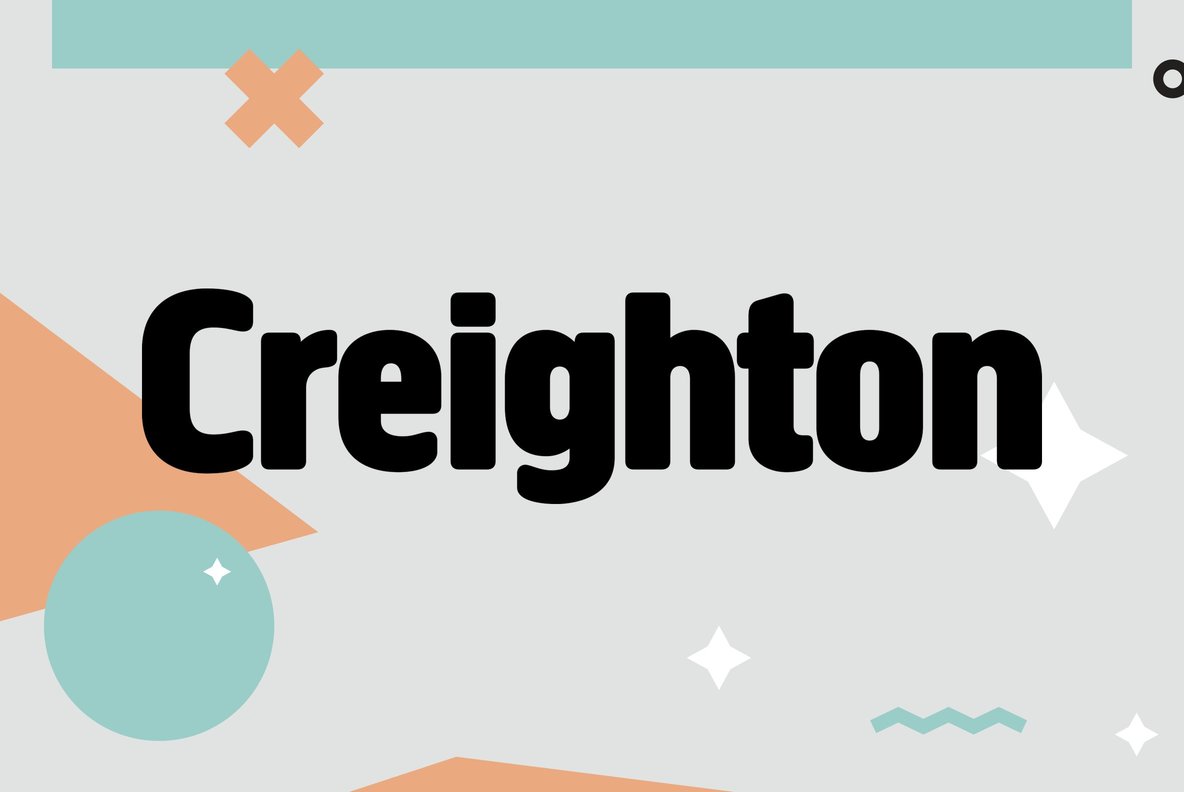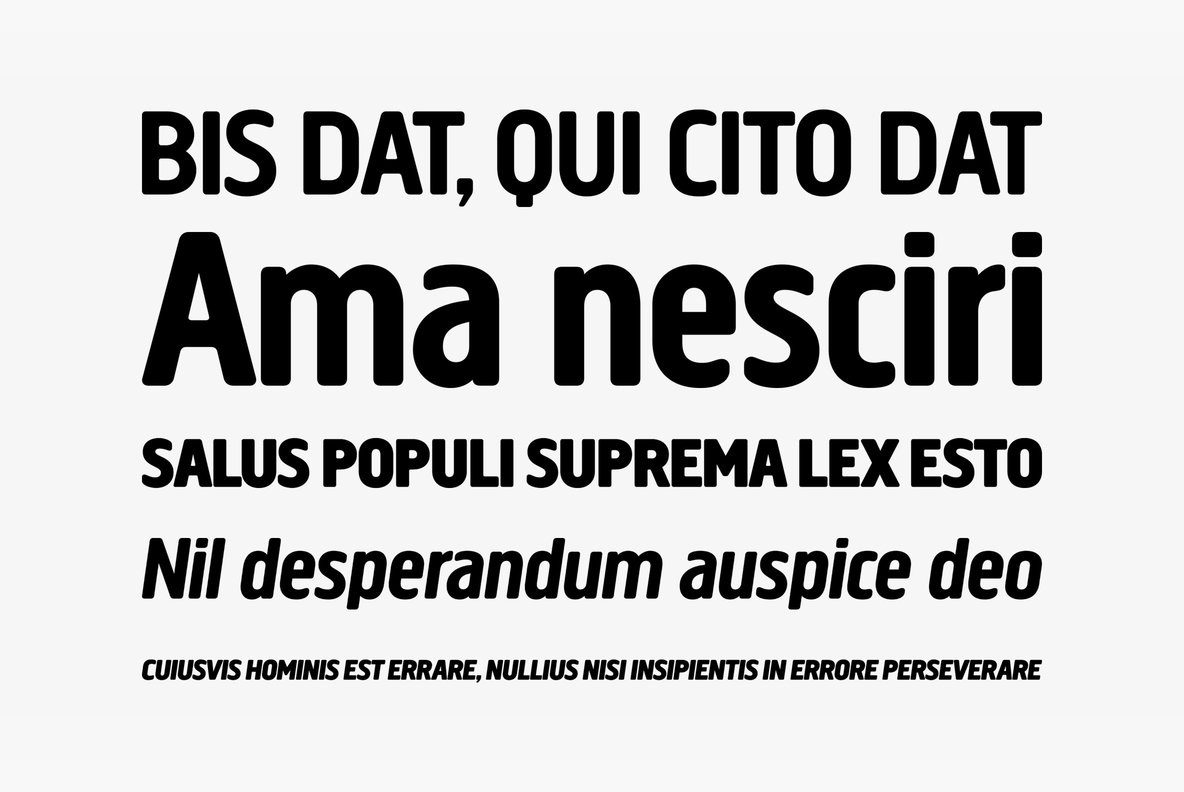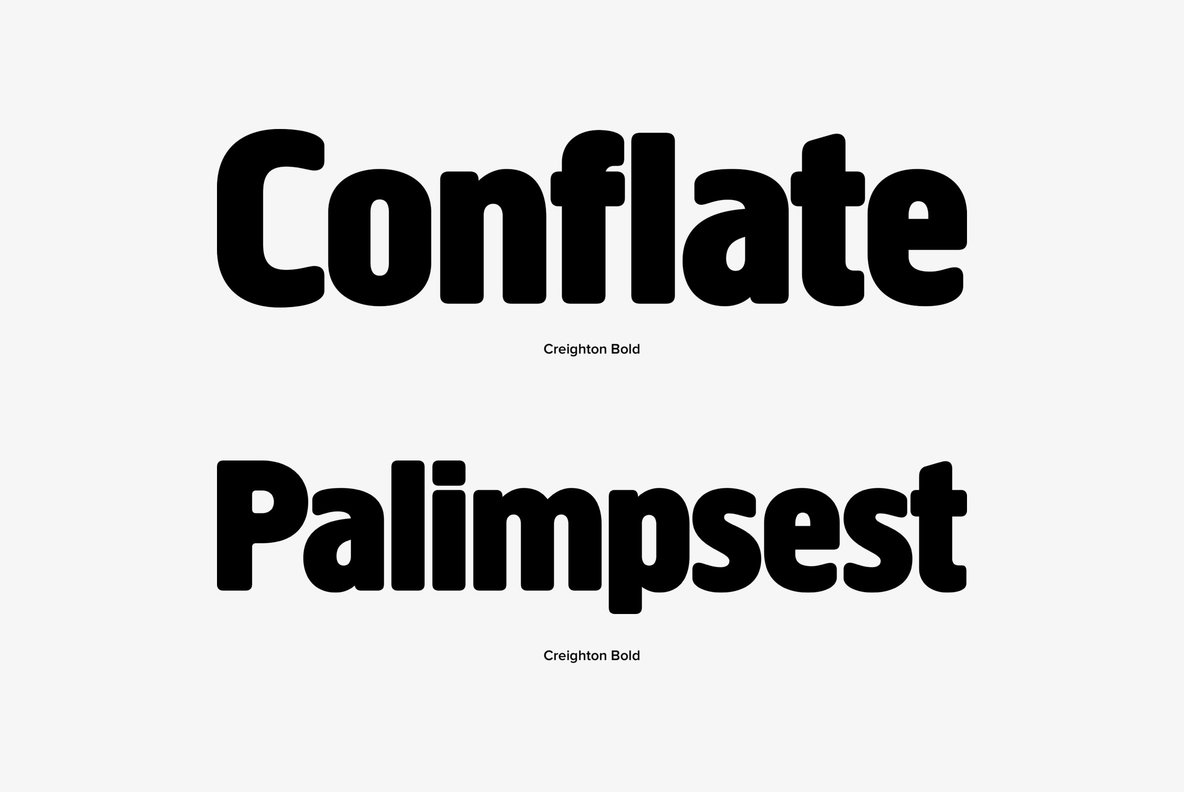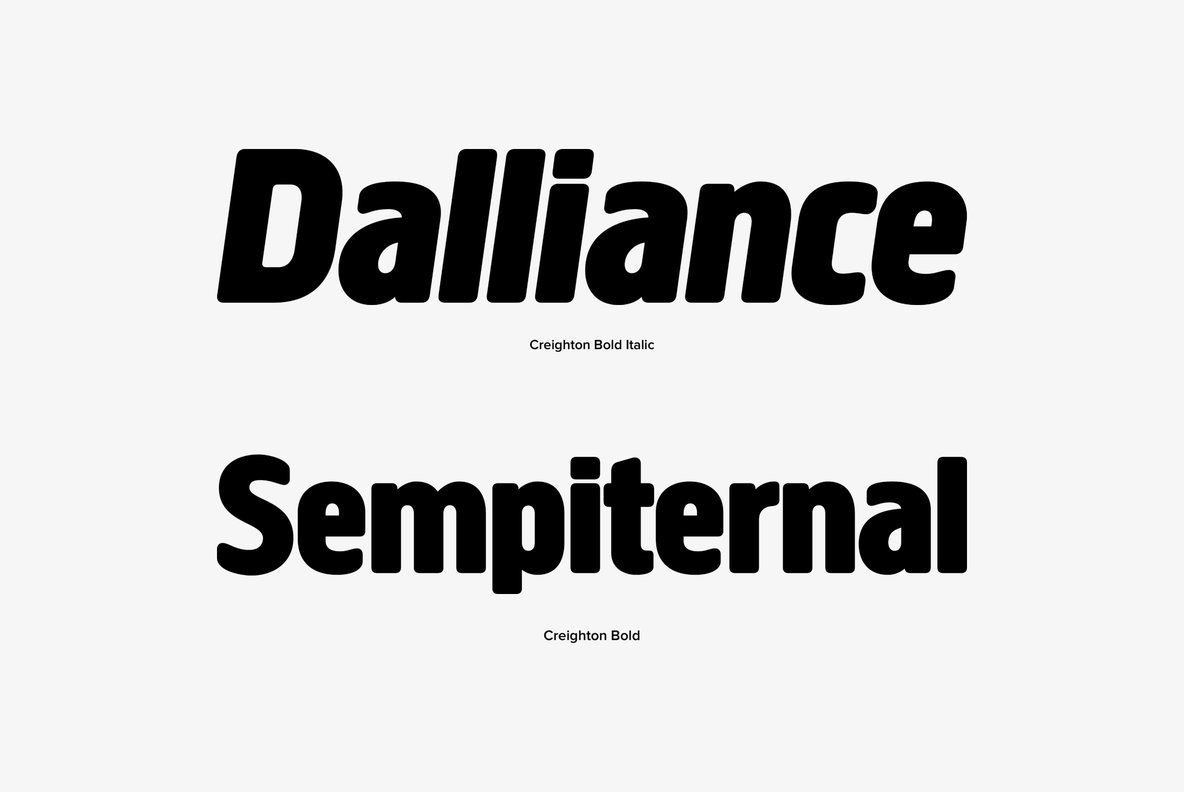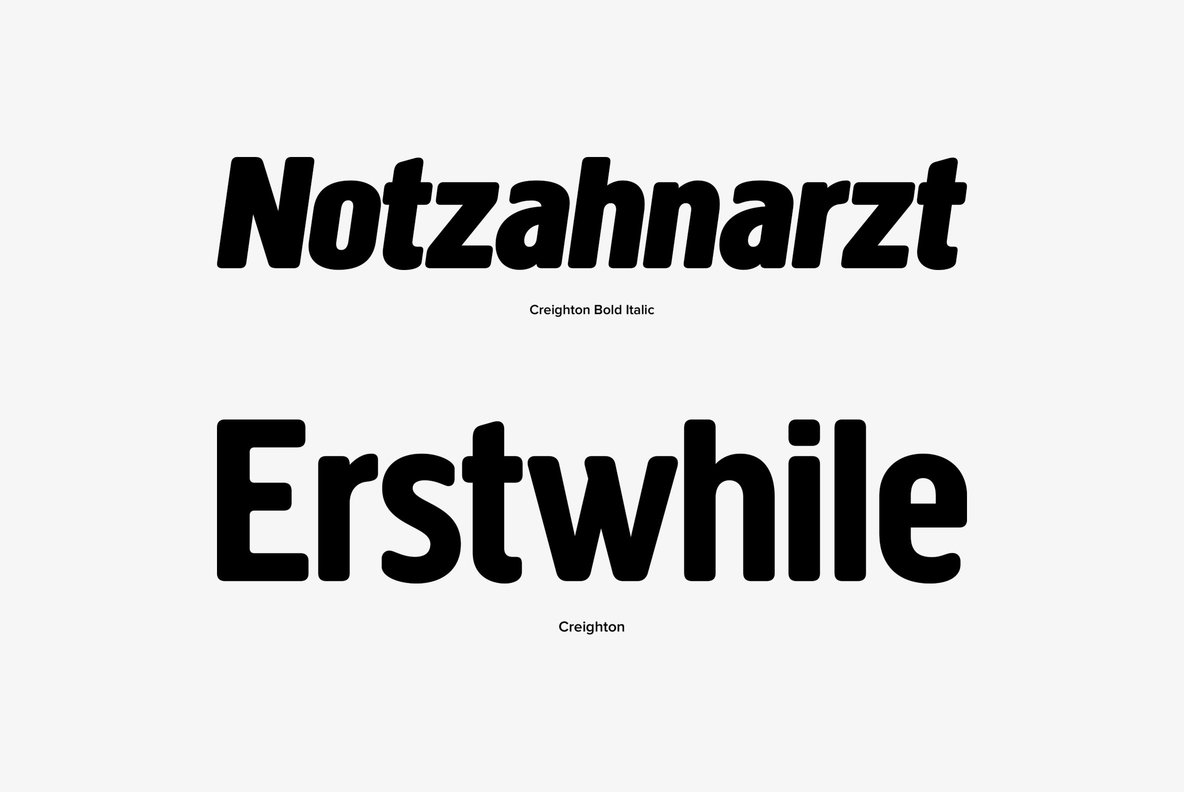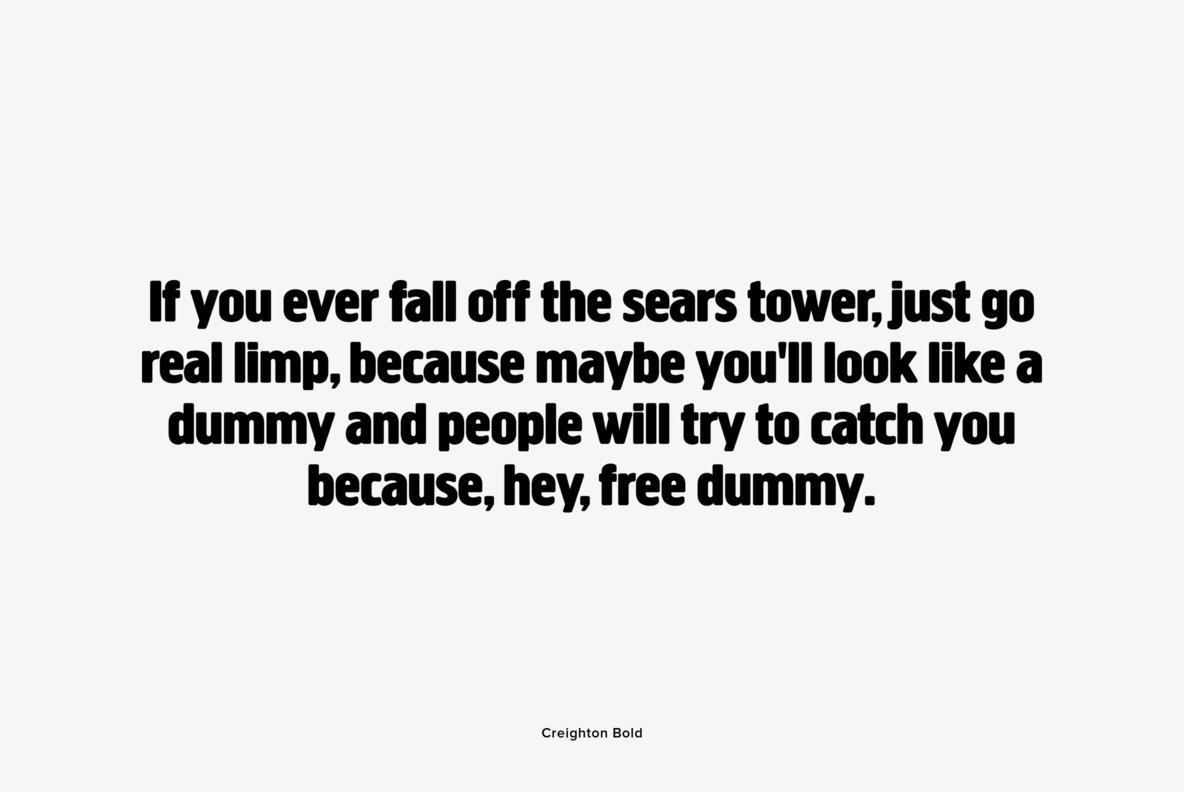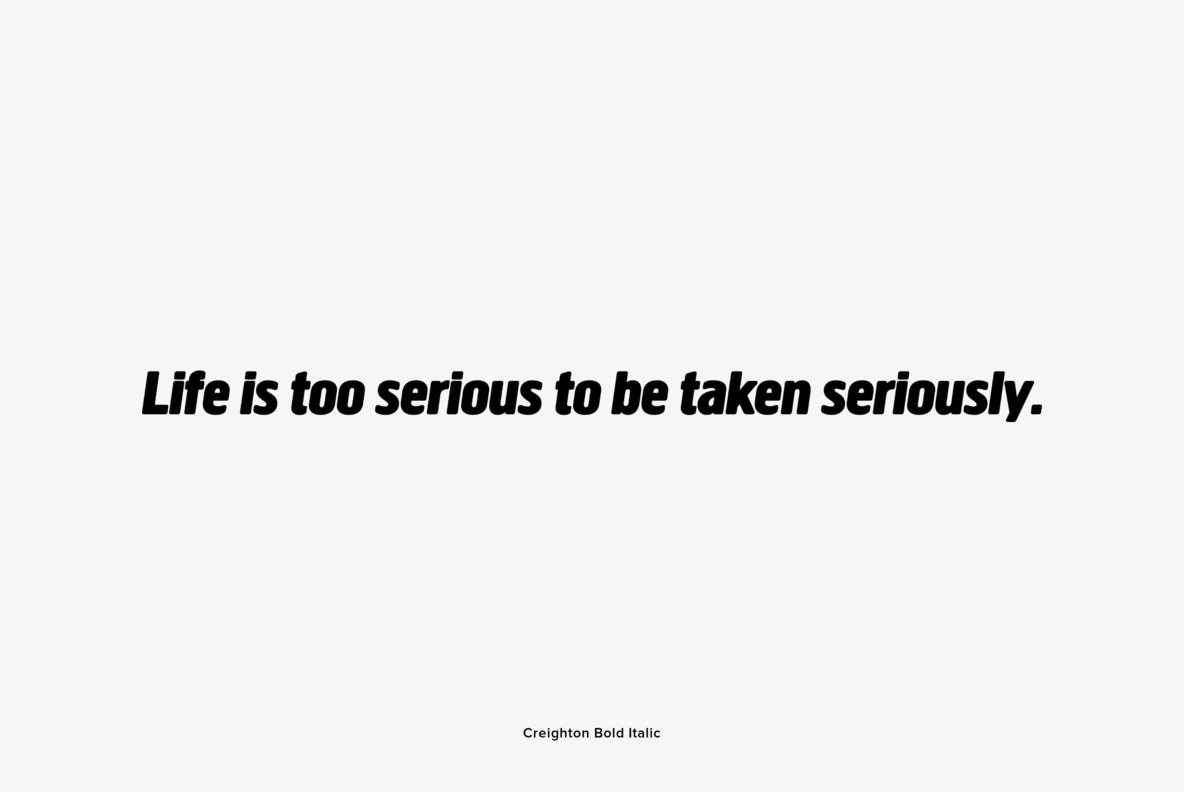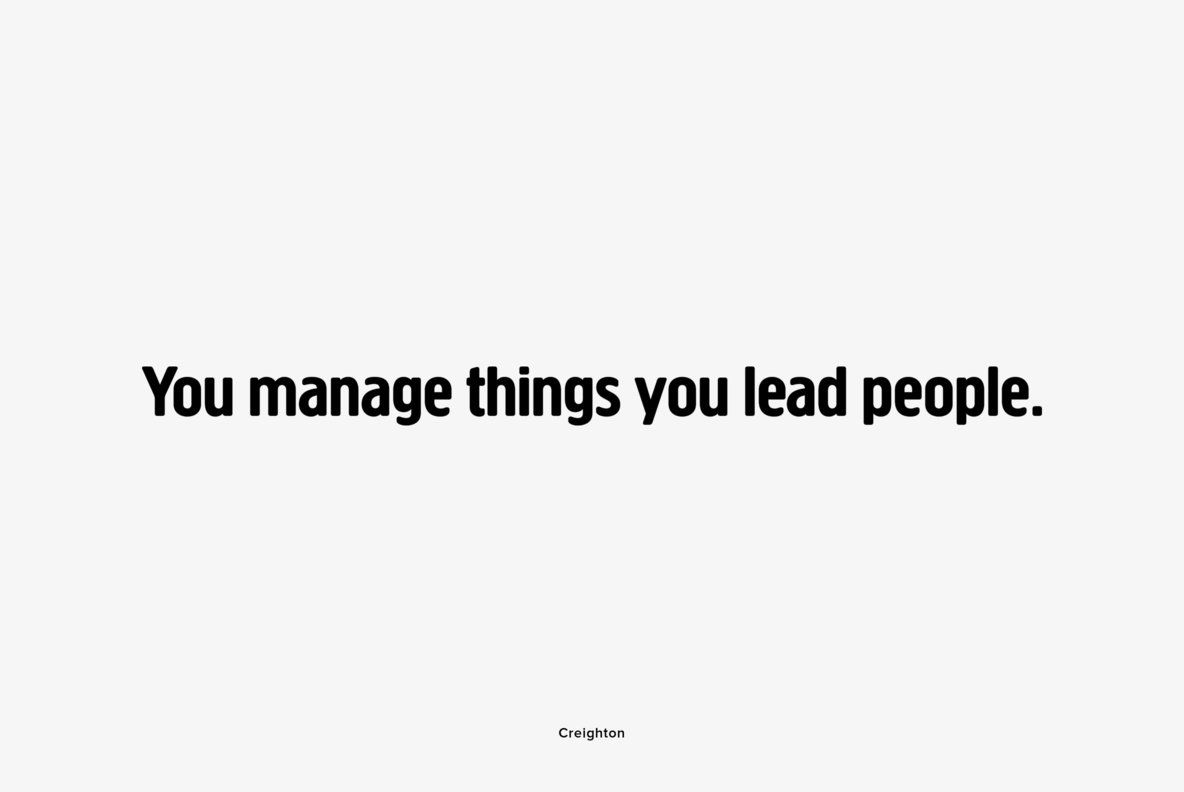
Creighton
Designed by Steve Jackaman and Ashley Muir. It was our initial intention to develop a suitable lowercase for Les Usherwood's 'Elston' typeface, based on a few characters from an old German typeface called Hermes Grotesque (Woellmer, Berlin). However, the new design quickly took on a life of its own, and we decided to call it Creighton.